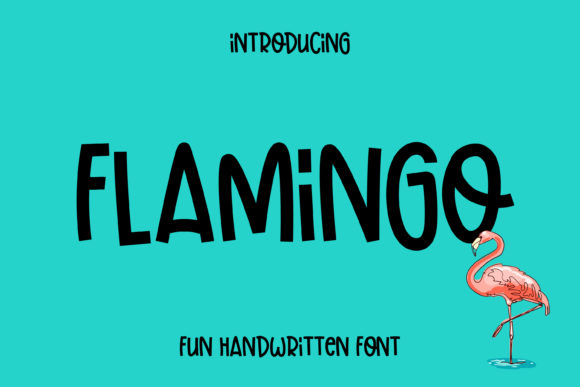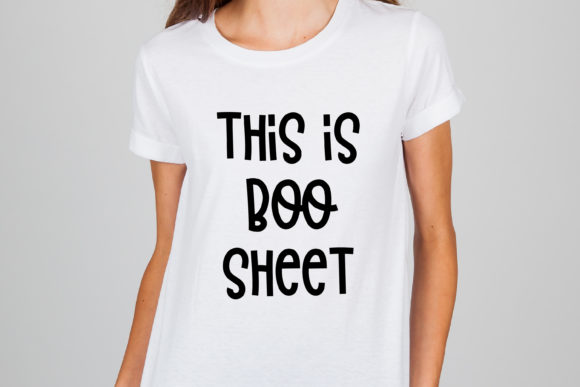
Flamingo Font
Flamingo  is a fun display font, carefully handcrafted to become a true favorite. Its casual charm makes it appear wonderfully down-to-earth, readable and, incredibly versatile. This font will look outstanding in any context, whether it’s being used on busy backgrounds or as a standalone headline!